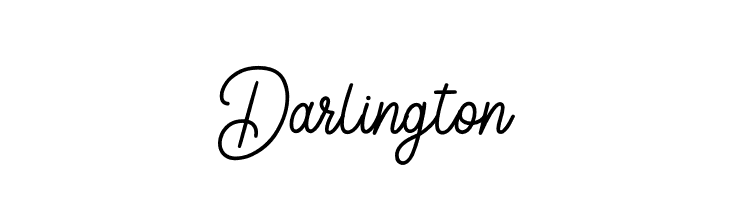
A lively, cursive font with a natural, handwritten feel.
A dynamic and fluid script font with elegant, flowing letterforms.
An elegant, flowing script font with a sophisticated, handwritten style.
An ornate and intricate font with elaborate, swirling patterns.
A dynamic and expressive handwritten script font with fluid, cursive letterforms.
An elegant, cursive script font with flowing lines and sophisticated style.
A graceful cursive font with elegant loops and a sophisticated style.
A playful, rounded font with smooth curves and a friendly appearance.
A modern, elegant script font with flowing, handwritten style.
A lively handwritten font with fluid, dynamic strokes and playful curves.